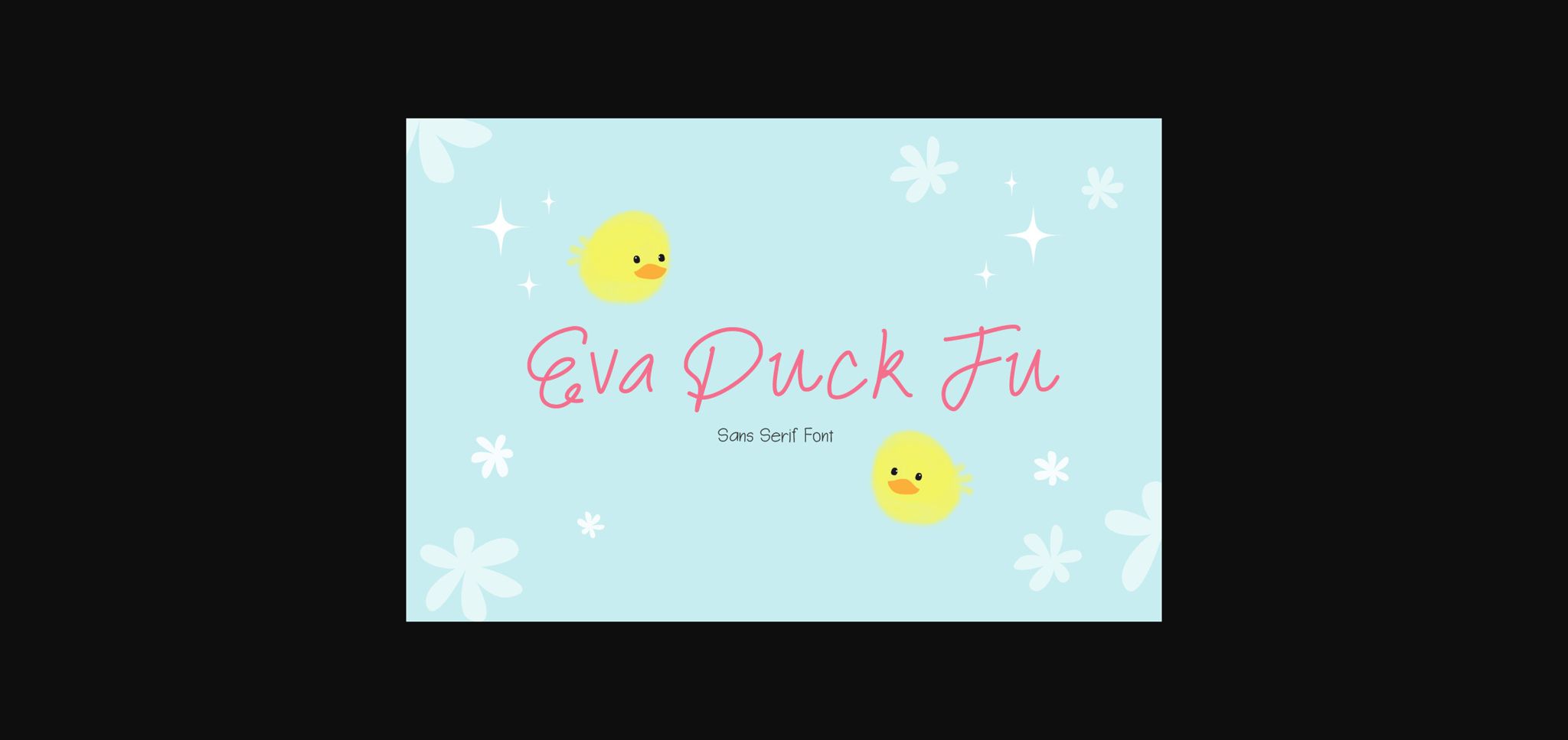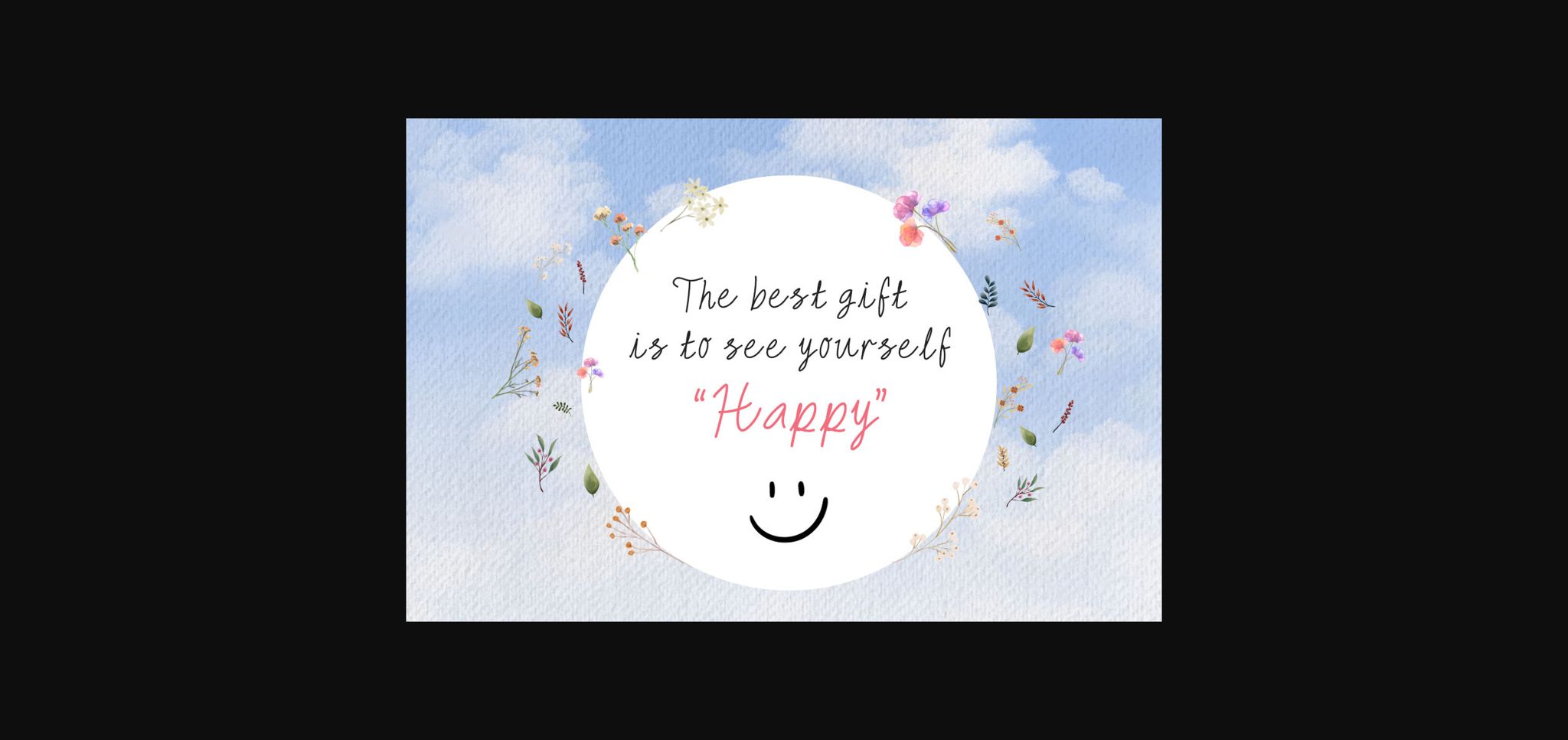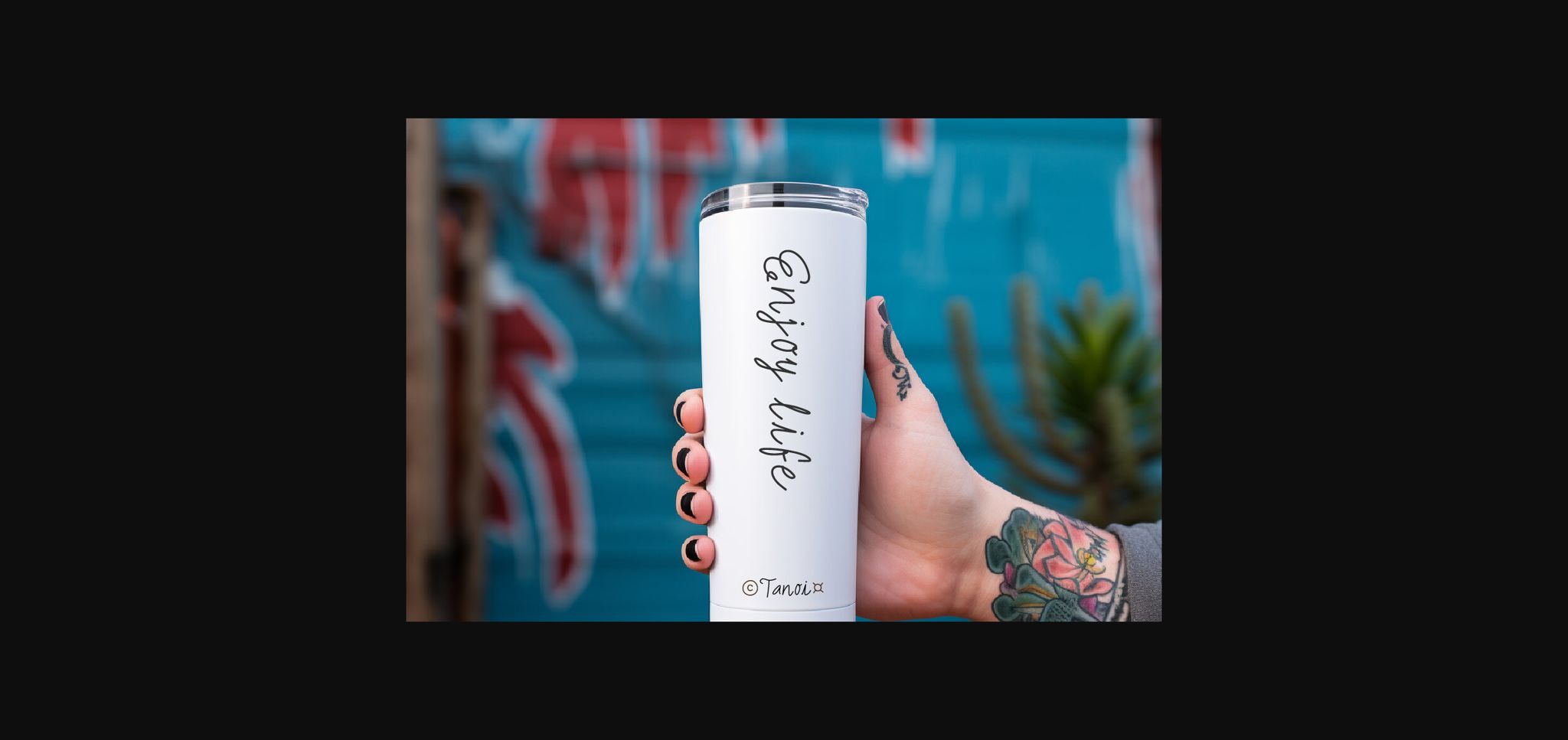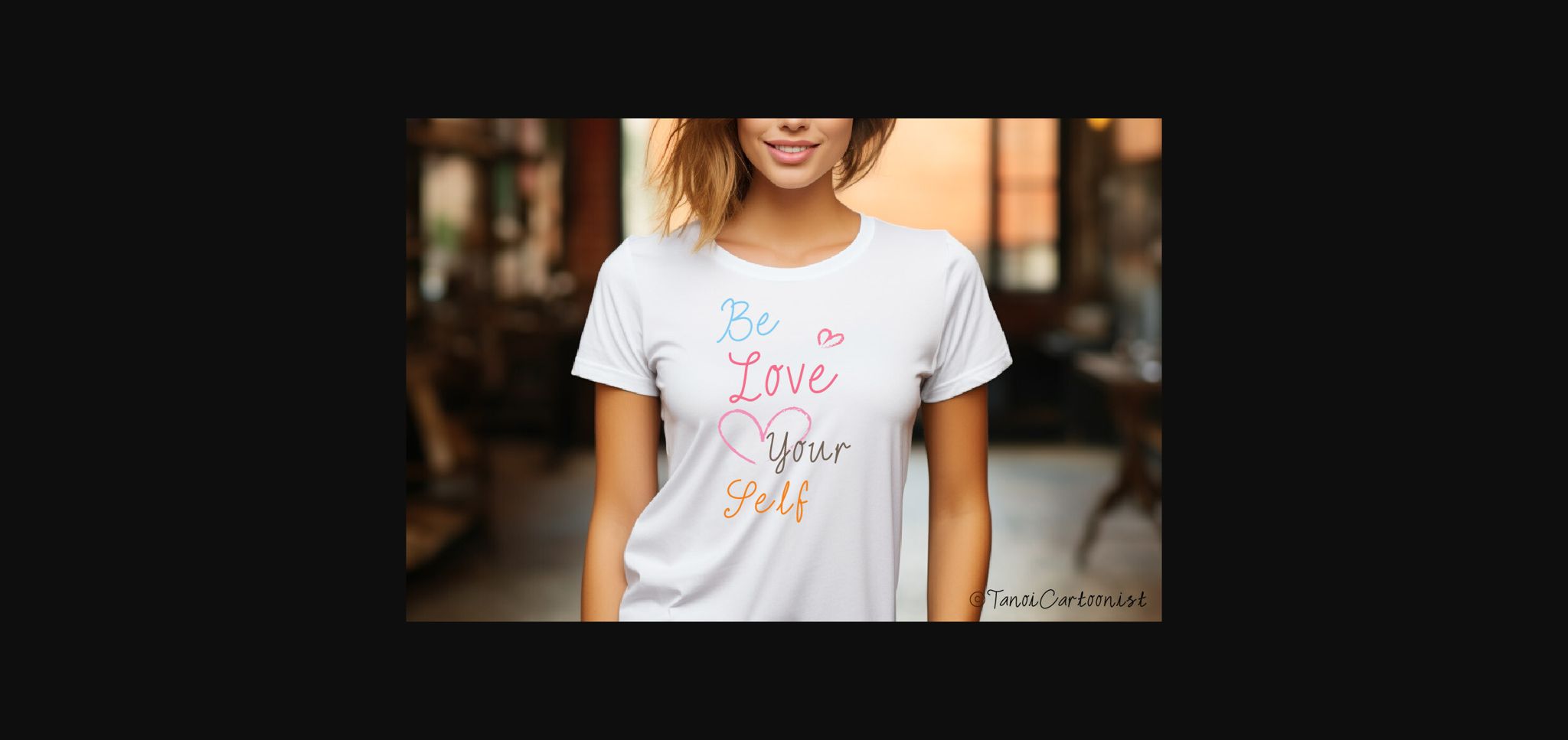
About Eva Duck Fu Font
Eva Duck Fu is a friendly, stylish and adorable sans serif font style. It would be awesome to your fun projects or diary planner, on wedding invitations, thank you cards, quotes, greeting cards, logos, posters, blogs, bag, T Shirt, clothing, eye-catching social media posts, and much more!